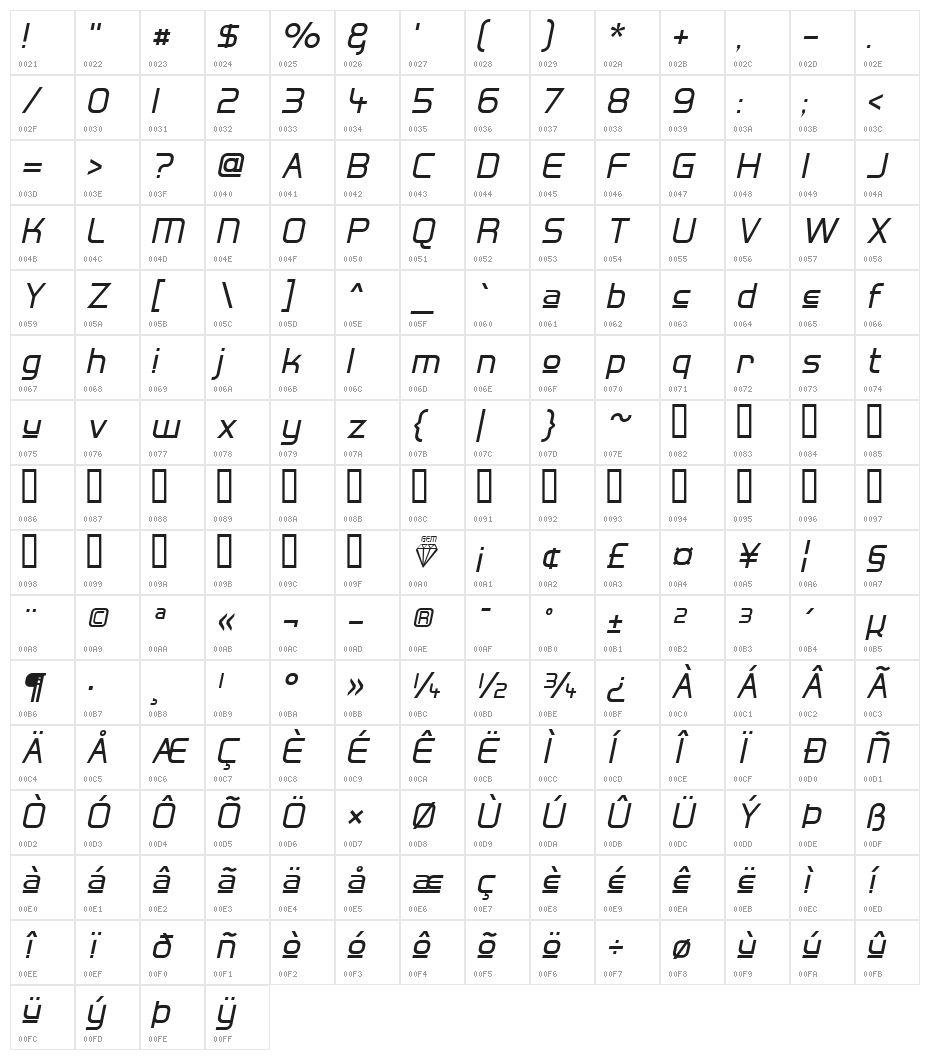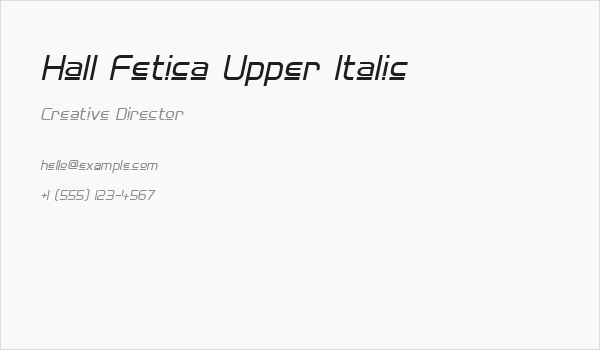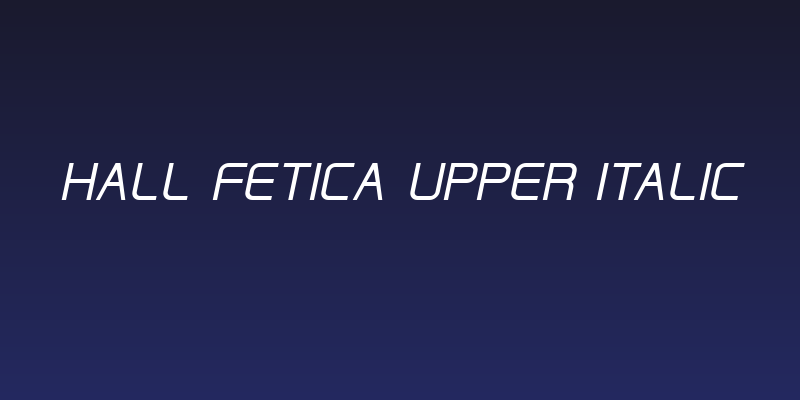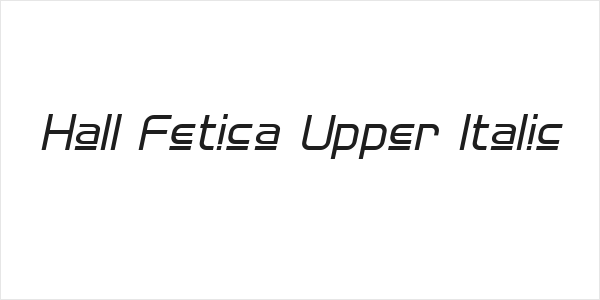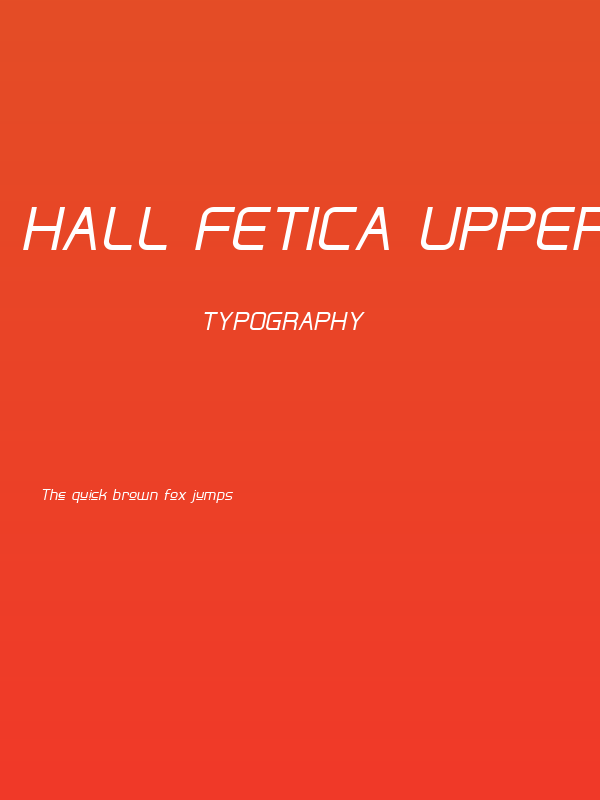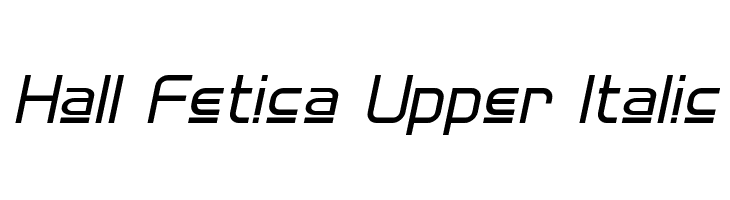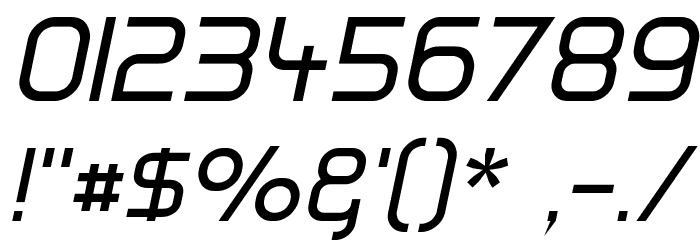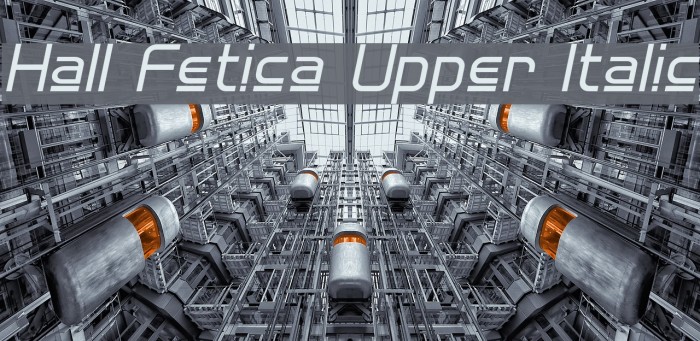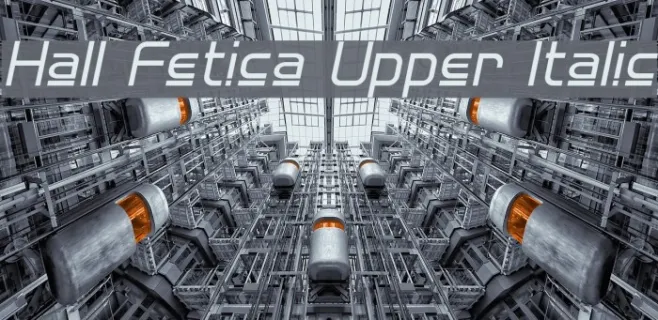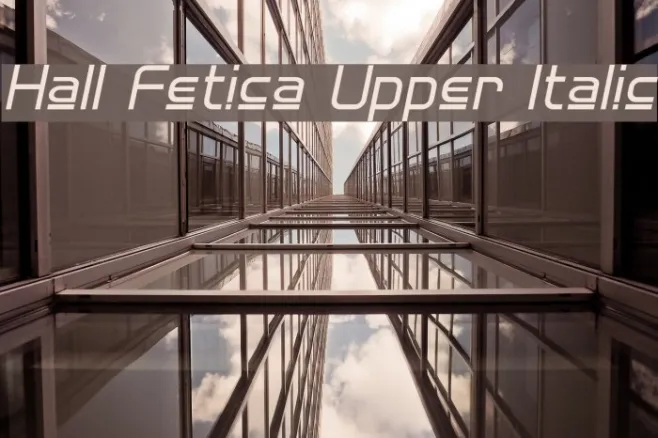
Hall Fetica Upper Italic Font
Hall Fetica Upper Italic Description
This font features a sleek, modern design with a distinct italic slant, giving it a dynamic and forward-moving appearance. The characters are crafted with precision, showcasing a geometric structure that combines both sharp angles and smooth curves. The uppercase letters maintain a consistent height, while the lowercase letters offer a harmonious balance with slightly rounded edges. Numbers and special characters are designed to match the overall aesthetic, ensuring uniformity across all elements. The font's clean lines and contemporary style make it suitable for a variety of design applications.
| Use Case | Headlines, Logos, Branding |
| Proposed Projects | Ideal for branding, advertising, technology-related designs, and modern editorial layouts. |